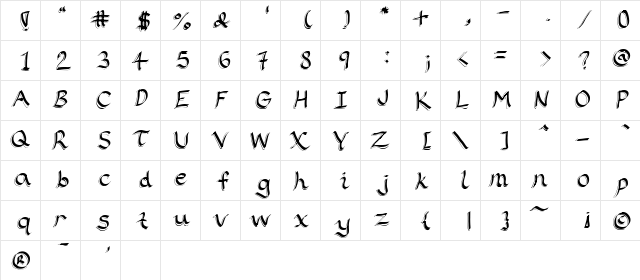
Ribbons 2 Regular
Design Context for Ribbons 2 Typeface
Ribbons 2 is a composed and adaptable typeface that performs quietly and consistently across a wide range of design contexts.